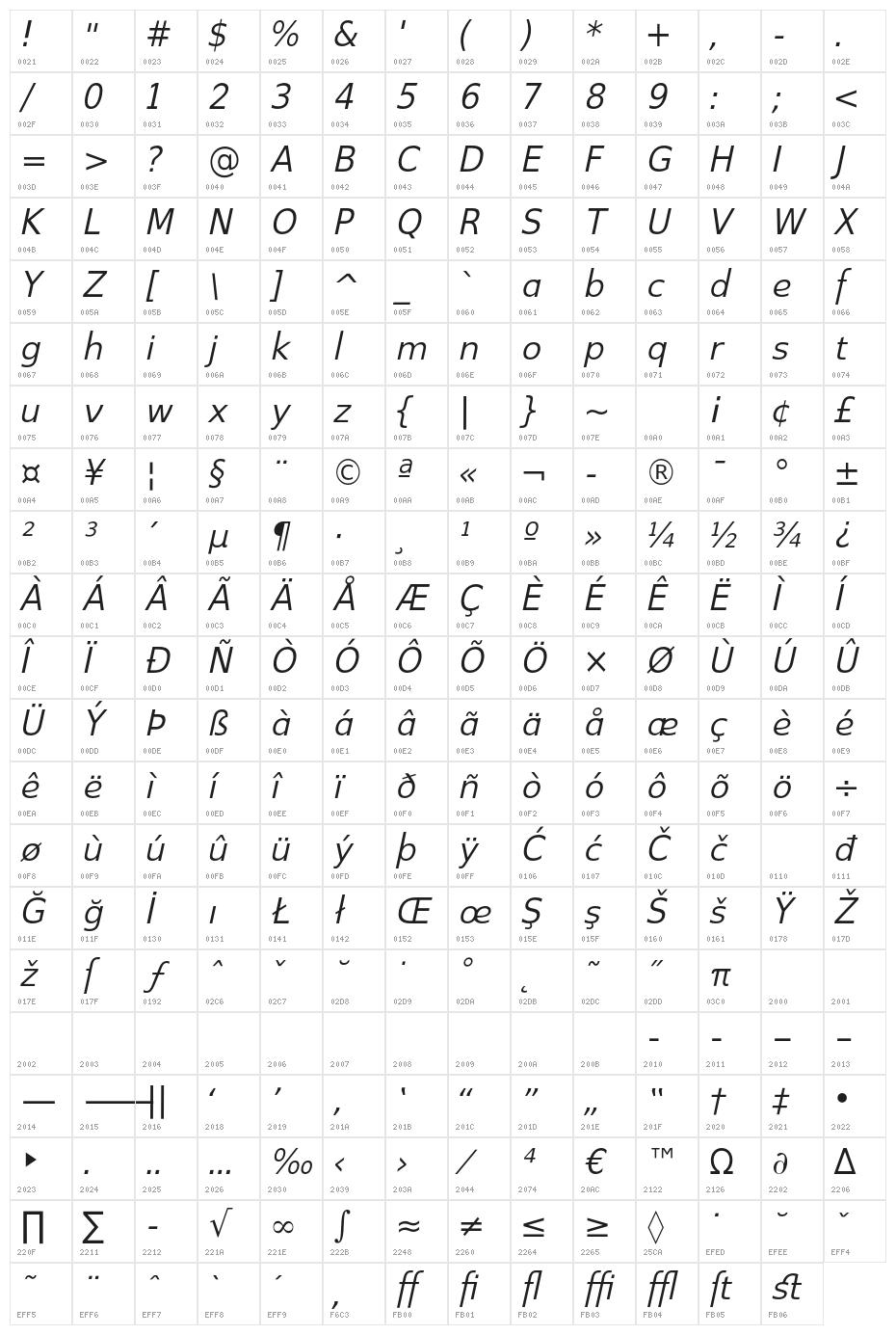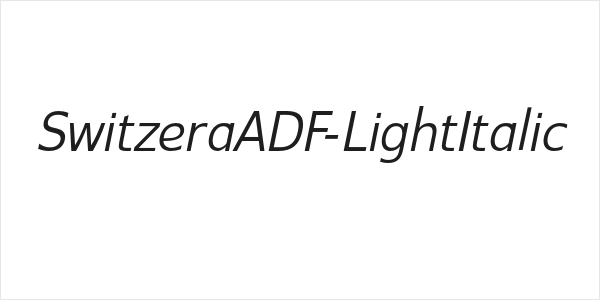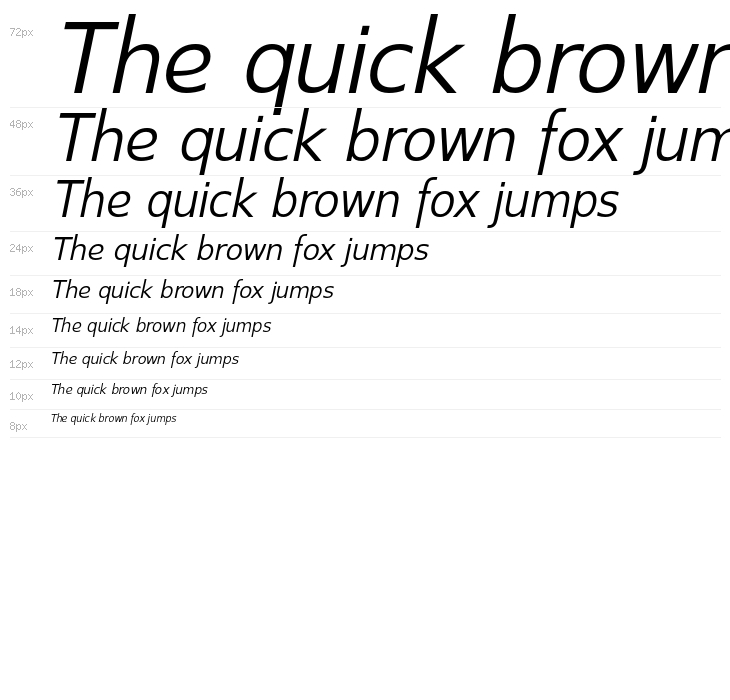
SwitzeraADF-LightItalic Font
SwitzeraADF-LightItalic Description
This font features a sleek and modern design with a light weight and italic style. The characters are slightly slanted, giving it a dynamic and elegant appearance. The sans-serif design ensures clean lines and a contemporary feel, making it versatile for various applications. The spacing between characters is normal, providing readability while maintaining a stylish look. The font's low contrast in stroke thickness adds to its subtlety and sophistication, making it suitable for both digital and print media.